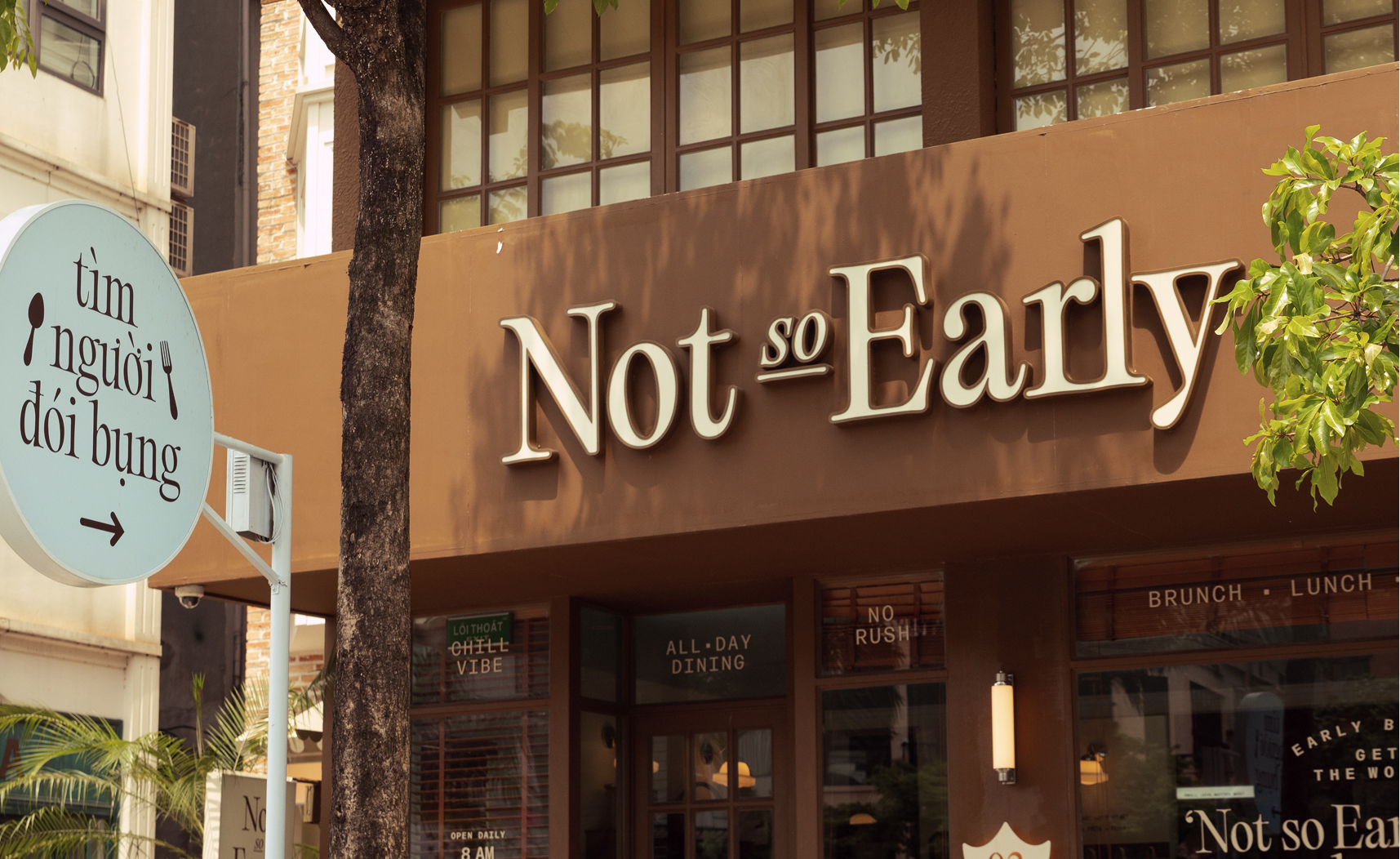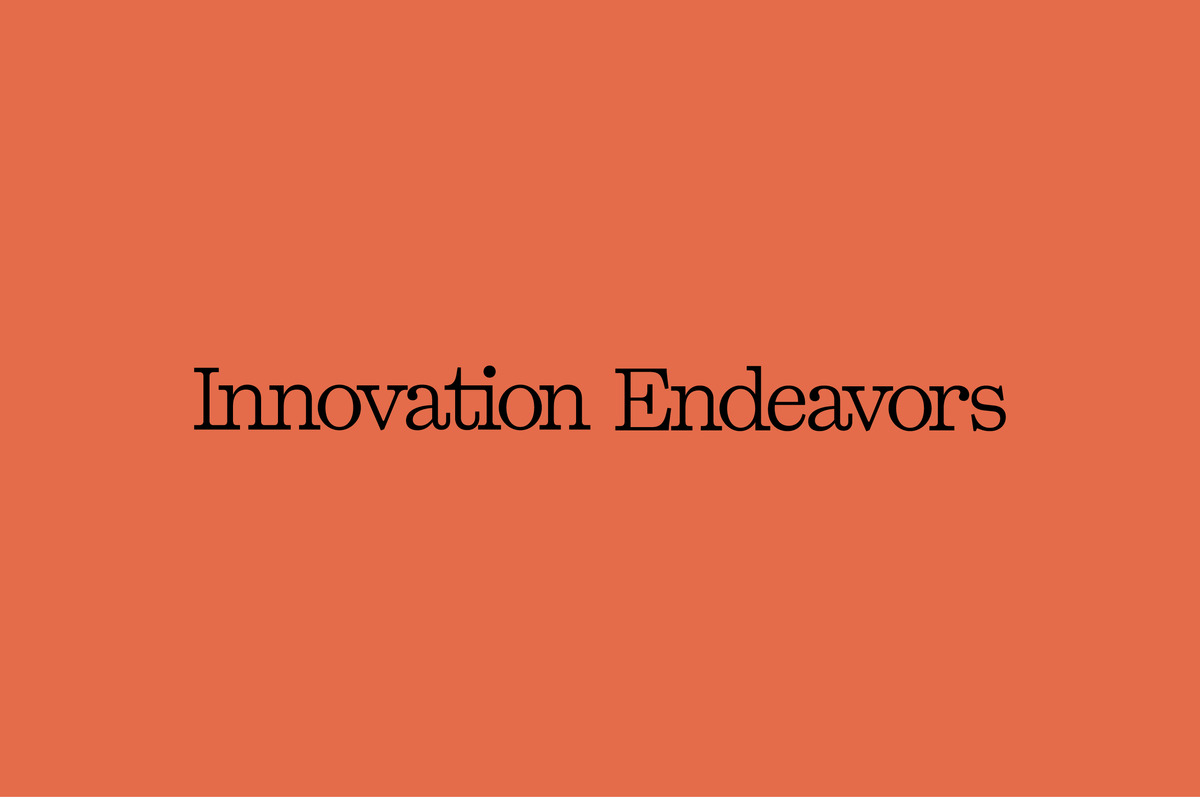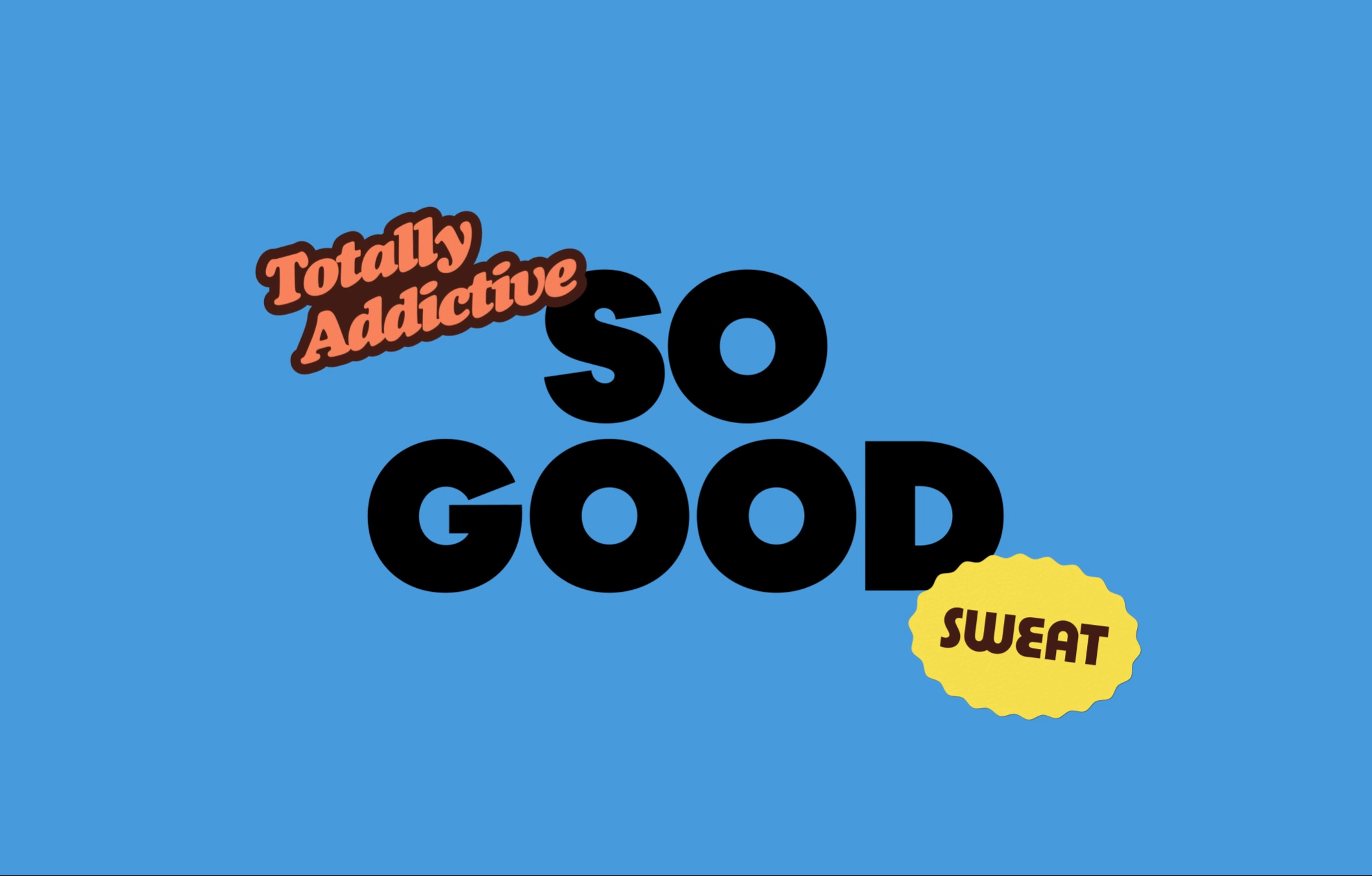
Neue Gstaad Collection New
Calm. Efficient. Swiss.112 styles + Variable Cut
Palma Collection New
A familiar Humanist with Fizz.28 styles + Variable cut
Neue Montreal Update
The only Grotesk you’ll ever need.36 styles + Variable cut
Neue York Collection New
A layered gothic rooted in the city's rich designs48 styles + Variable cutsThe five boxing wizards jump quickly from Bronx cafes to dazzling Queens nightclubs.AaBbCcDdEeFfGgHhJjKkLlMmNnOoPp -
Frama New
A classic geometric, refined for today.28 styles + Variable cut
Kyoto
Bold slabs.
Soft teardrops.
Impact with grace.18 styles + Variable cuts
Mori Update
Inspired by Japan. Built for anywhere.22 style + Variable cut
Museum
Classic form. Contemporary soul.18 styles + Variable cuts
Neue Corp Collection Update
Ultimate tool for advertising.160 styles + Variable Cut
Watch
Understated. Overdelivered.9 styles + Variable cutsFoxy diva Jennifer Lopez wasn’t baking my quiche.AaBbCcDdEeFfGgHhJjKkLlMmNnOoPp -
Monument Collection
Your brutalist ally.90 styles + Variable cuts
Model Collection
Inspired by the iconic Japanese brand Tamiya.72 styles + Variable Cut